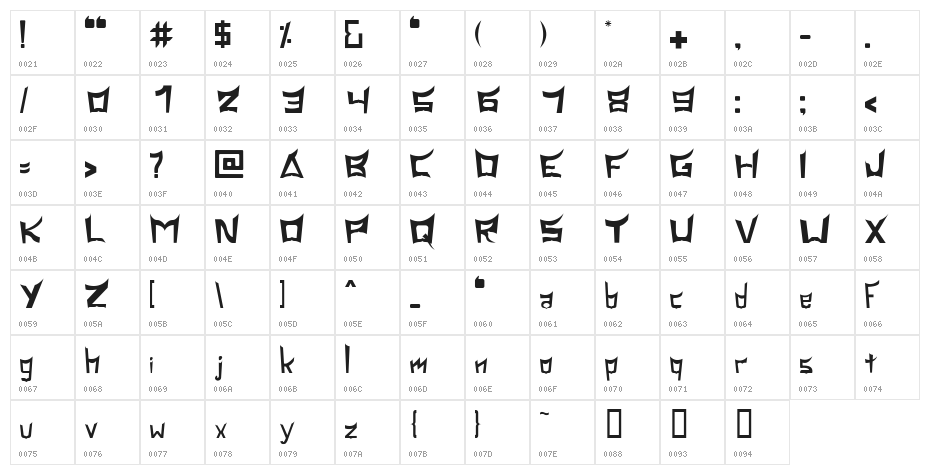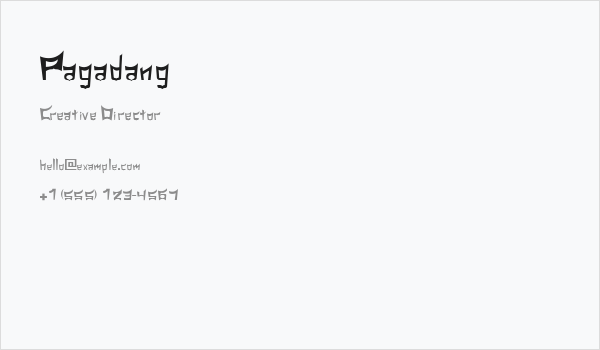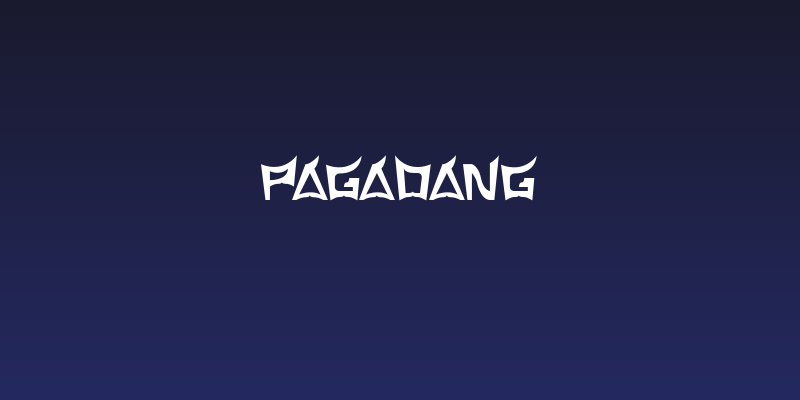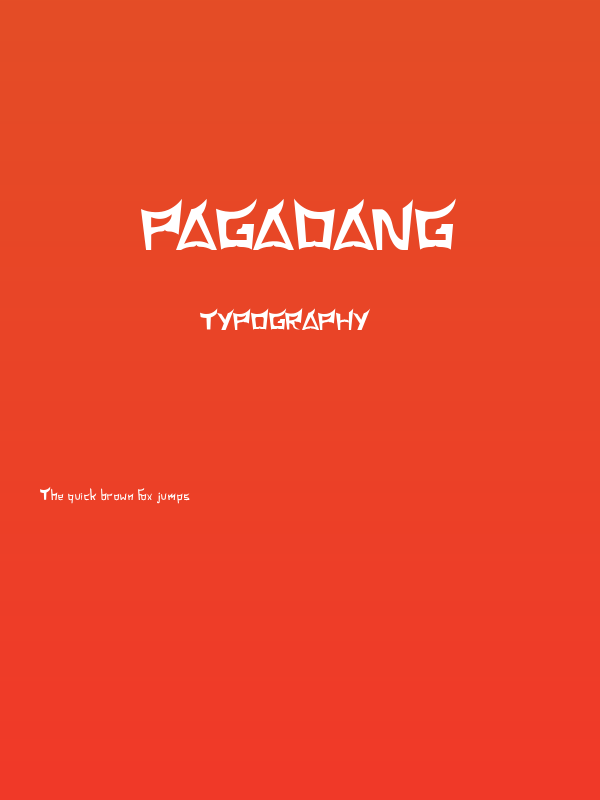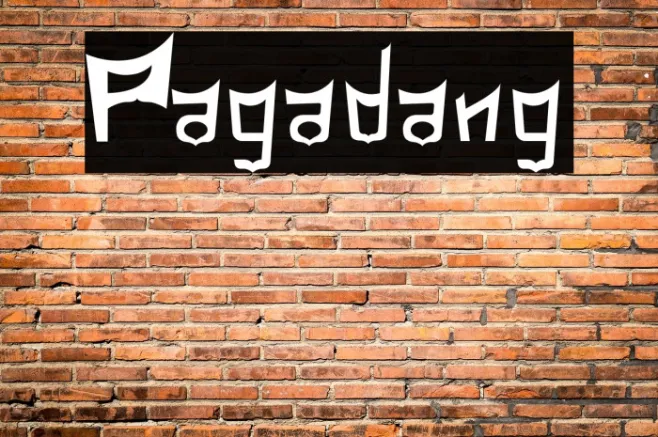
Pagadang Font
Pagadang Description
This font features a bold, angular design with sharp edges and a distinct geometric style. The uppercase letters have a strong presence, characterized by pointed tips and a consistent height, giving them a uniform appearance. The lowercase letters maintain the angular theme, with unique flourishes that add character and individuality to each letter. The numerals are similarly styled, ensuring consistency across the font. Special characters are creatively designed, maintaining the overall aesthetic while providing functionality. This font's boldness and unique style make it stand out, suitable for projects that require a strong visual impact.
| Proposed Projects | Ideal for branding, posters, album covers, and any project needing a striking, modern look. |